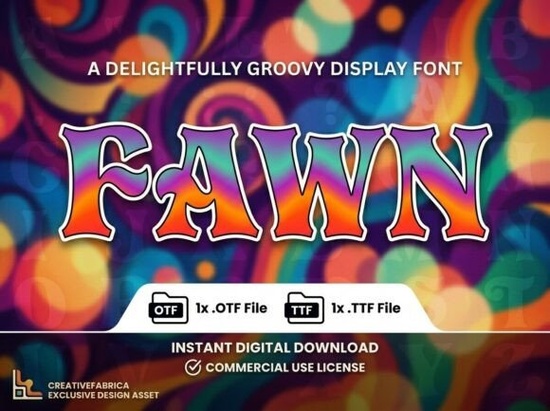
Finding the right typography can make or break a creative project. Sometimes, a standard serif or sans-serif just doesn’t carry enough personality. This is where Fawn Font comes into play. It is built to grab attention immediately. Unlike fonts meant for reading paragraphs, this typeface handles short text and titles with distinct flair. If you run a print-on-demand business or work on branding projects, having a unique asset like this helps set your work apart from competitors. It adds weight to your message without needing complex graphics.
Does the uppercase-only restriction affect my workflow?
Yes, this is the most important detail you need to verify before buying. The character set only supports capital letters. There are no lowercase versions included in the package. You cannot type normal sentences with this font because small letters simply do not exist in the file. Designers often mistake display faces for standard alphabets. This one requires specific planning regarding content length. You will likely use it for headers, acronyms, or single-word statements. Because every letter is capitalized, spacing becomes crucial. You need to watch how wide the kerning looks between characters.
When used correctly, the block of uppercase text feels intentional rather than like a mistake. A designer might pair this bold display type with a simple sans-serif for body copy to create balance. If you ignore this limitation, you might find yourself stuck trying to force lowercase characters that aren't there. Stick to short, punchy text blocks where the lack of lowercase becomes a stylistic choice rather than a technical error.
How should I incorporate this typeface into my work?
This design sits best on posters, book covers, or merchandise. Imagine a logo for a boutique coffee shop. The thick strokes and artistic quirks suggest warmth and quality. For t-shirt printing, bold lettering stands out against fabric textures and colors. It works exceptionally well on packaging labels for handmade goods. You could create a striking banner for a sale event or a headline on a blog post thumbnail. The key is to keep surrounding text minimal. Let the font do the heavy lifting while simpler fonts handle details.
Using this font effectively involves respecting its visual weight. It is too heavy to mix with other loud display fonts. Pairing it with a neutral background color or a texture image helps the letters pop. If you are creating social media graphics, try keeping the background clean so the intricate edges of the letters remain visible. Avoid wrapping text tightly around the characters, as the shape changes might cause collisions.